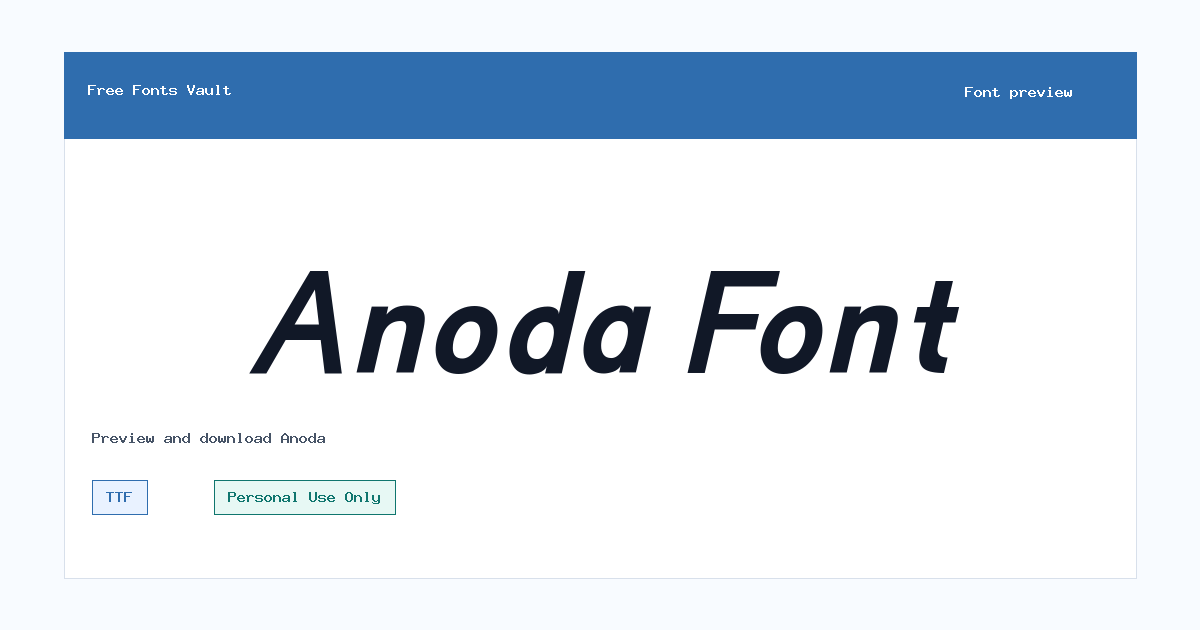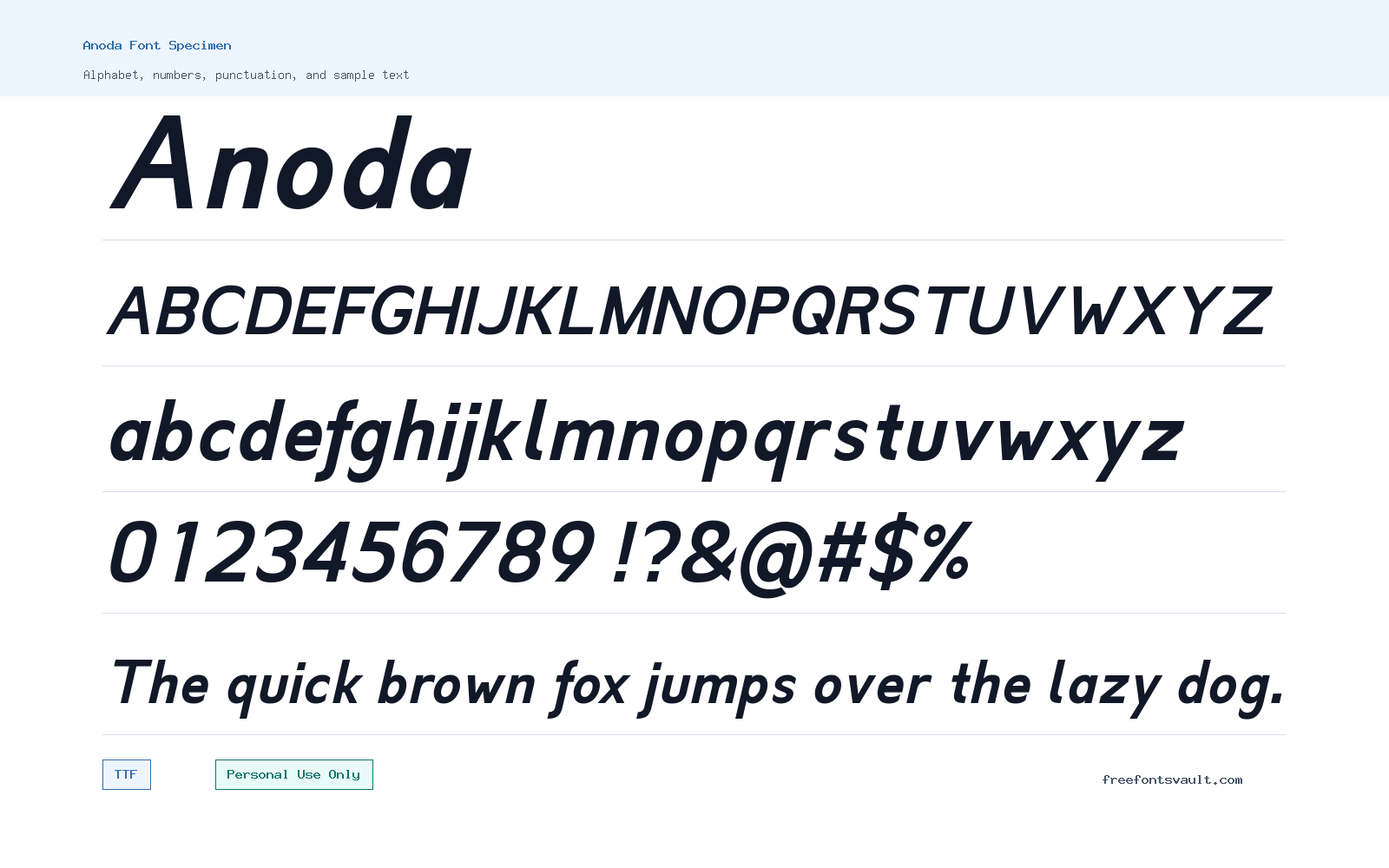
Anoda
- Designer Imaad Phoplunker
Anoda is a sans serif font with a bold italic style, suited to short text where you want a strong slanted look rather than long reading copy.
About Anoda Font
Anoda is listed as a sans serif font by Imaad Phoplunker. The downloadable font file is a TTF in a Bold Italic style, so visitors should expect a heavier, angled appearance instead of a plain upright text face. That makes it more useful for display work, quick emphasis, and short phrases than for paragraphs or small interface text.
- Sans serif style for short display text and emphasis
- Headlines, title graphics, and short promotional text
- Logos, badges, posters, and social media designs for personal projects
What style of Anoda is available?
The available font file is Anoda Bold Italic, with italic styling and a 700 weight.
Is Anoda good for body text?
It is better suited to short display text. A bold italic style can become tiring in long paragraphs, so test readability before using it for extended copy.
Who designed Anoda?
Anoda is credited to Imaad Phoplunker.